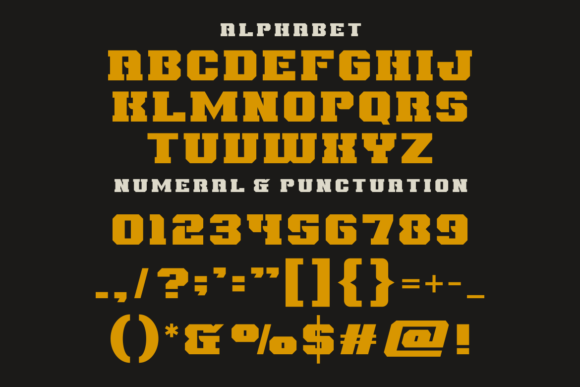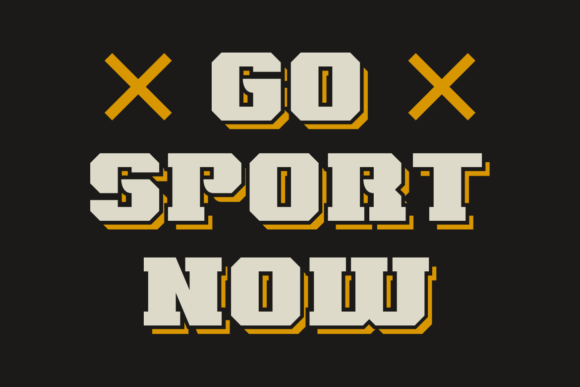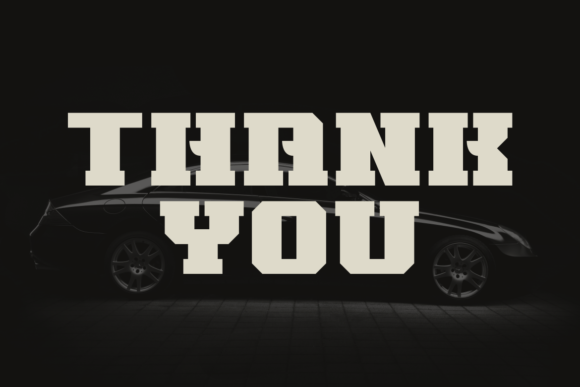
Introducing BURN SPEED Font: The Ultimate Modern Display Font for Designers and Crafters
Are you tired of using the same old fonts for your branding projects? Look no further! We’re excited to introduce our new product, BURN SPEED Font – a modern, bold, and authentic display font that’s perfect for designers and crafters alike. In this article, we’ll dive into the features and benefits of BURN SPEED Font, and explore how it can elevate your branding projects to the next level.
What is BURN SPEED Font?
BURN SPEED Font is a carefully crafted display font that’s designed to make a statement. Its bold and authentic style makes it perfect for a wide range of applications, from logos and t-shirt printing to product design and more. Whether you’re working on a personal project or a client’s branding campaign, BURN SPEED Font is sure to turn heads.
Key Features of BURN SPEED Font
- Bold and Authentic Style: BURN SPEED Font boasts a unique and eye-catching design that’s sure to grab attention.
- Versatile: This font is suitable for a wide range of contexts, from logos and branding to t-shirt printing and product design.
- Easy to Read: Despite its bold style, BURN SPEED Font is easy to read, even at smaller sizes.
- High-Quality: Our font is designed with high-quality craftsmanship, ensuring a professional finish for your projects.
Benefits of Using BURN SPEED Font
So, why choose BURN SPEED Font for your next project? Here are just a few benefits of using this amazing display font:
- Stand Out from the Crowd: With BURN SPEED Font, you can create unique and eye-catching designs that set you apart from the competition.
- Save Time: Our font is easy to use and customize, saving you time and effort on your design projects.
- Professional Results: BURN SPEED Font is designed to deliver professional results, every time.
- Endless Creative Possibilities: With BURN SPEED Font, the creative possibilities are endless – use it for logos, t-shirts, products, and more!
How to Use BURN SPEED Font
- Logo Design: Use BURN SPEED Font to create a bold and memorable logo for your brand.
- T-Shirt Printing: Create eye-catching t-shirt designs with BURN SPEED Font.
- Product Design: Use BURN SPEED Font to add a professional touch to your product designs.